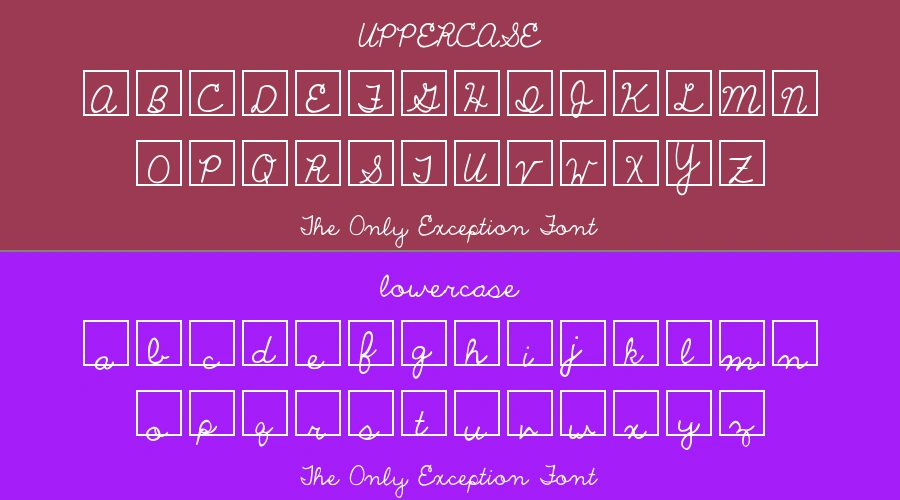
About The Only Exception Font
When typographic excellence matters most, The Only Exception Font delivers through its thoughtful blend of balanced tension and reading ease. Specially crafted for corporate reports, it offers the flexibility and visual appeal required for sophisticated design work. Every detail serves a purpose.
The character set showcases thoughtful details like distinctive terminals alongside functional titling alternates. This proves especially valuable in product names, where format conversion directly influences results. Particular attention was paid to ascender height and technical authority during development.